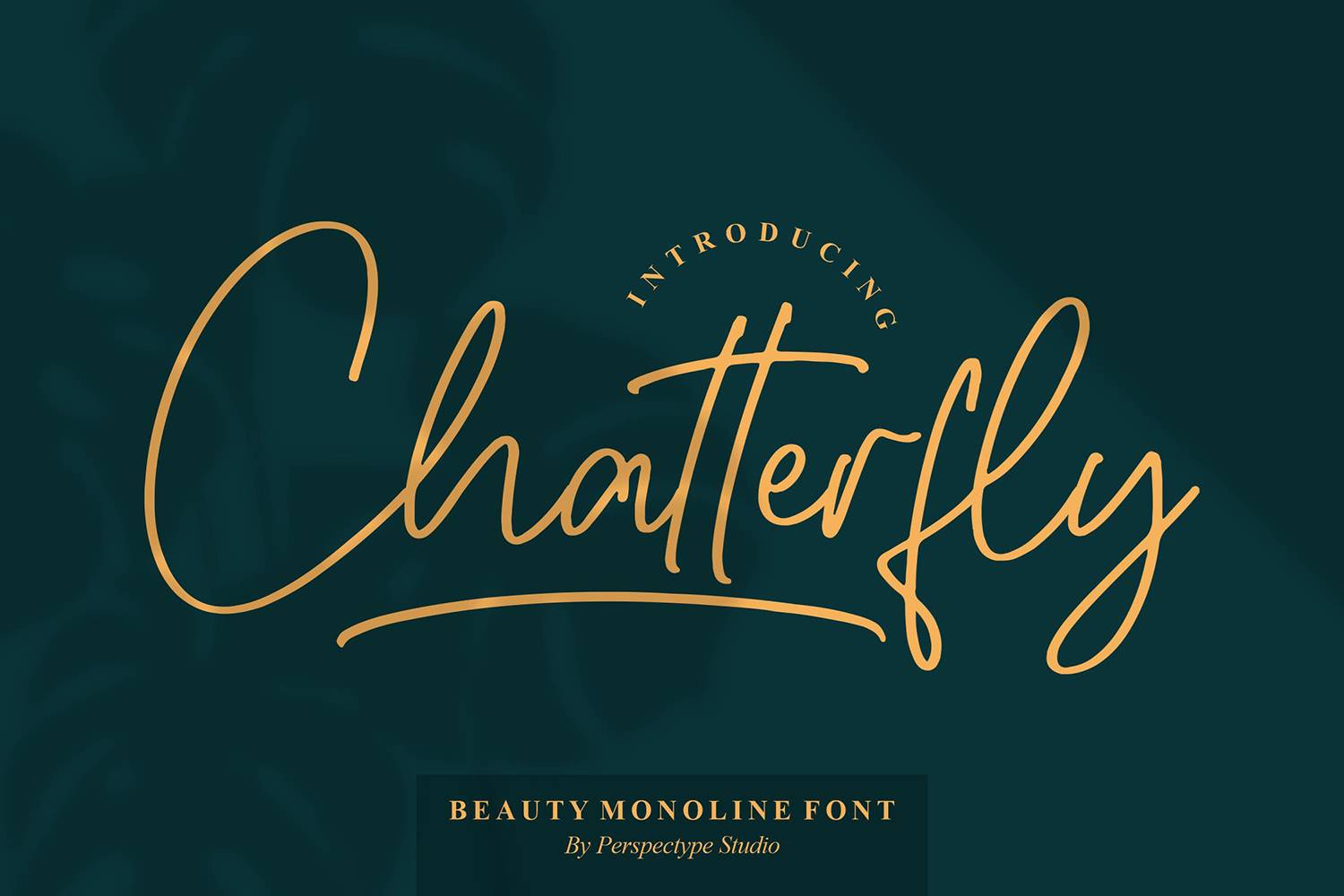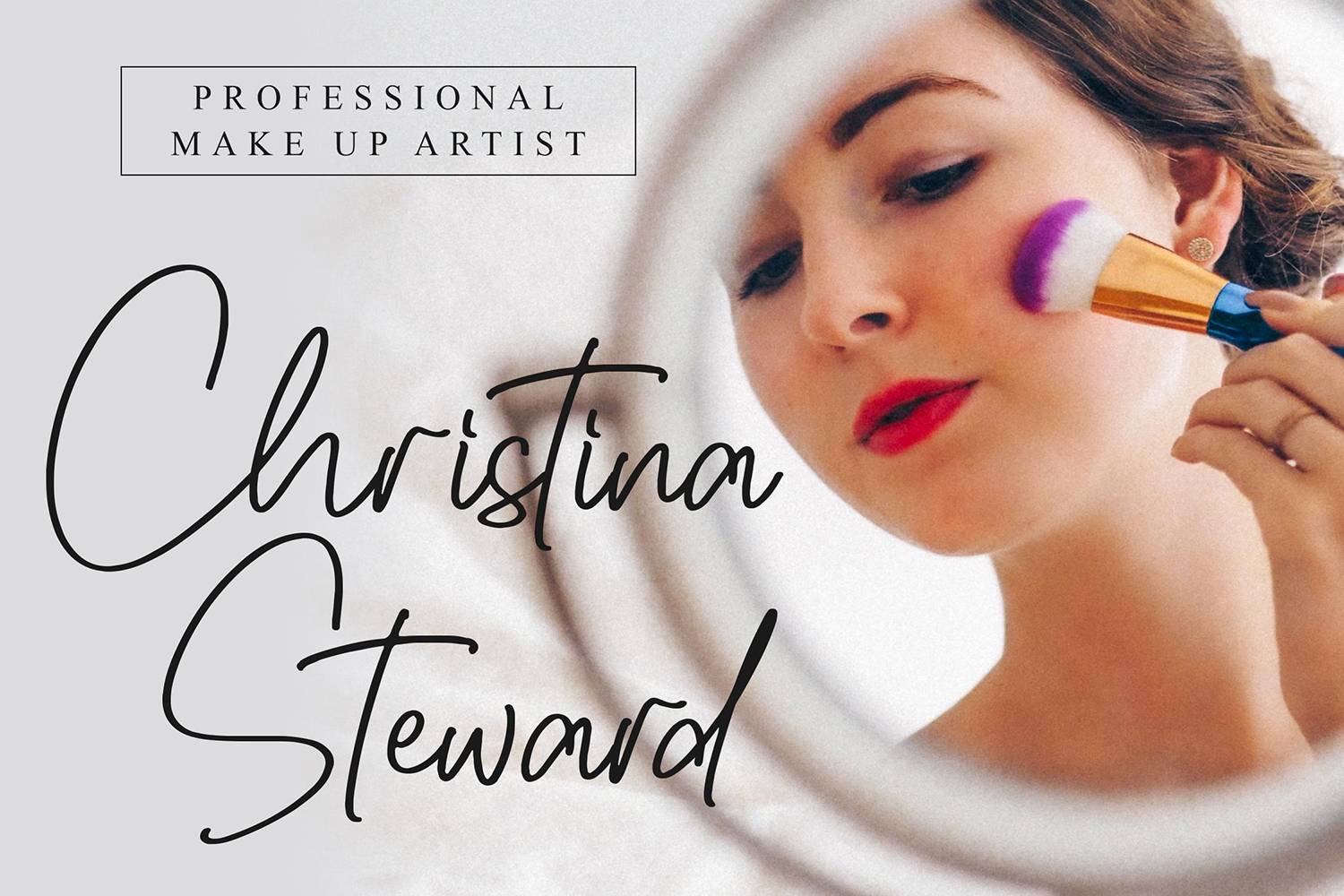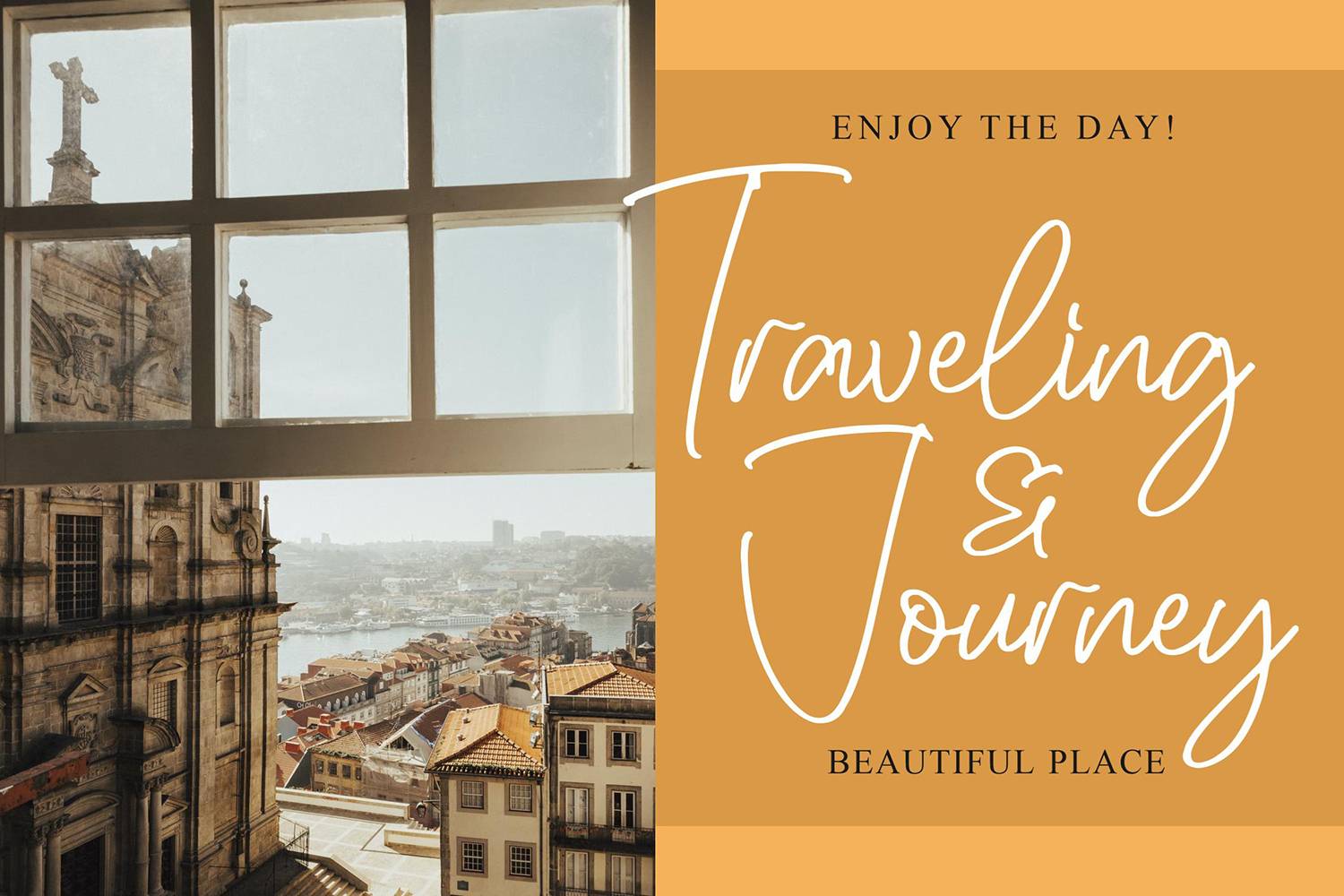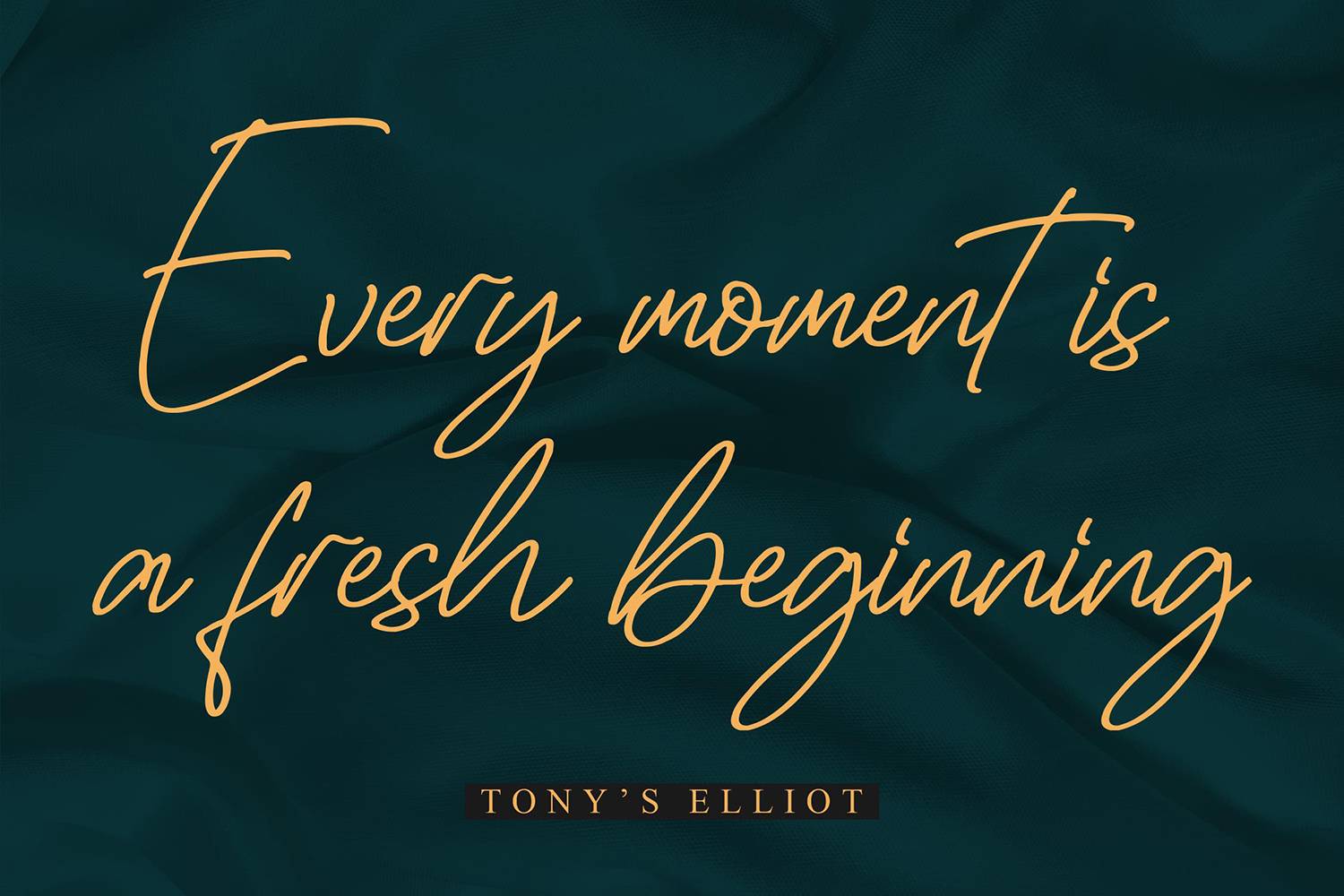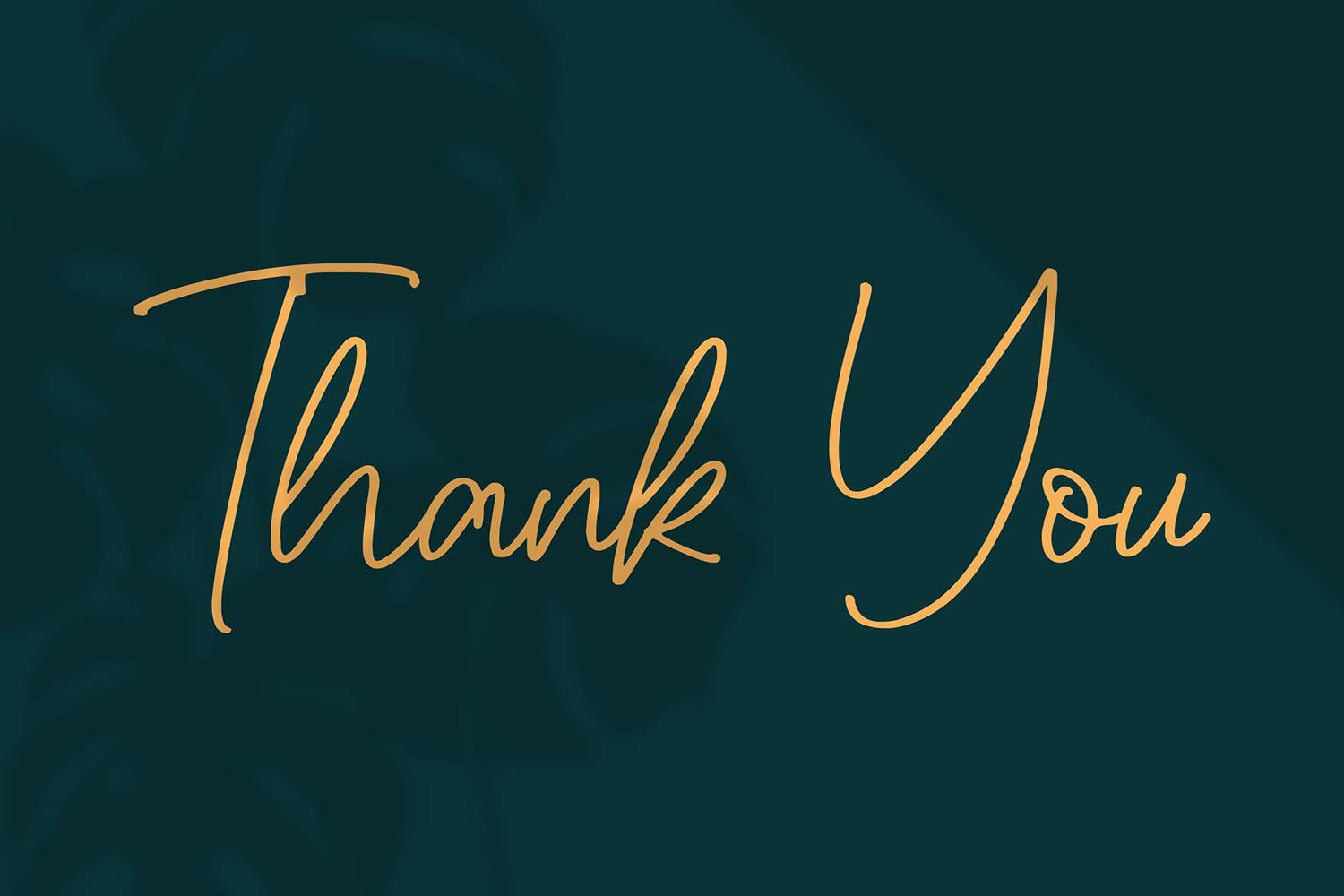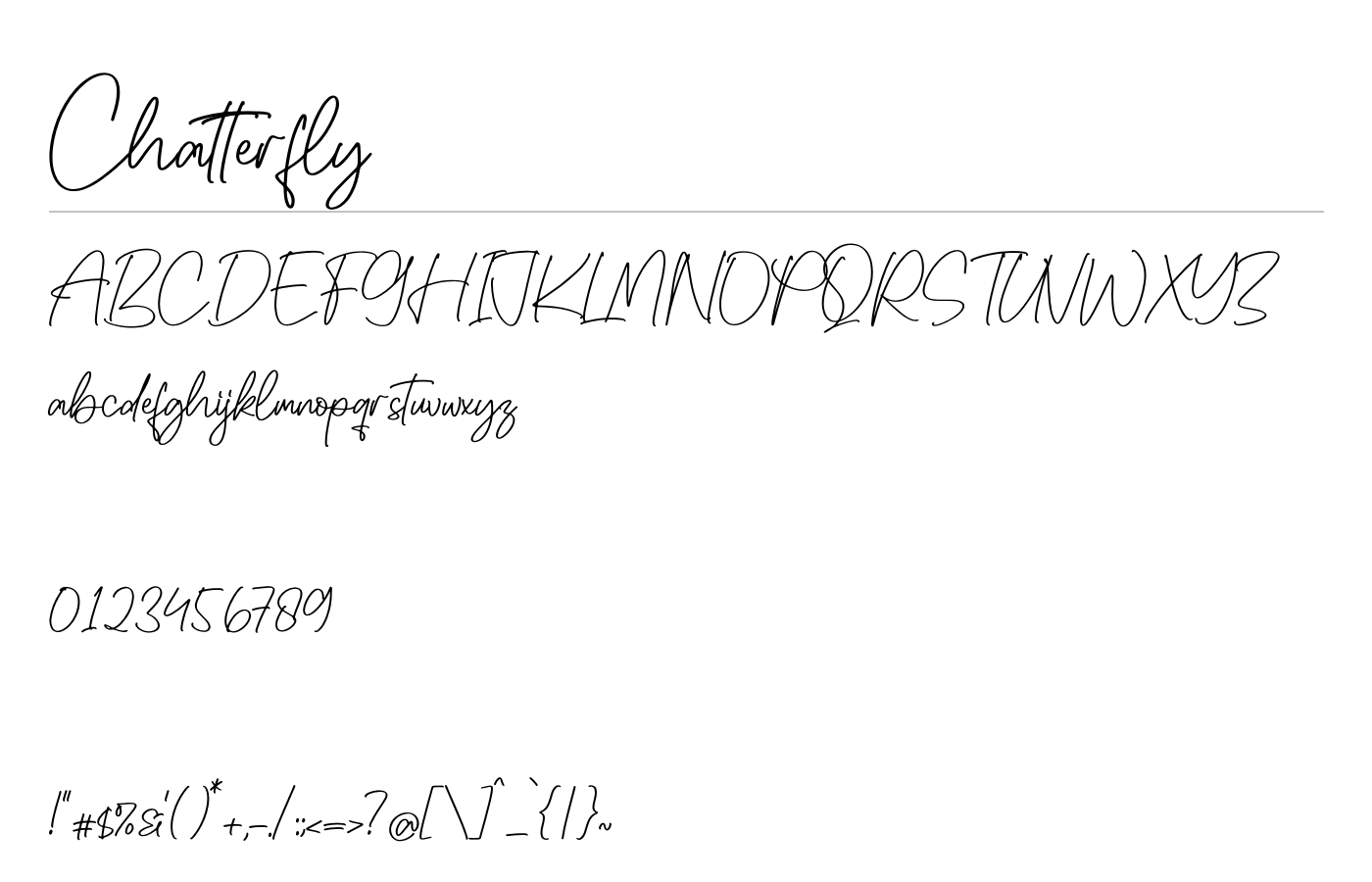
Chatterfly is a delicate, handwritten script font with a light weight and a casual, airy feel. Its tall, flowing letterforms and fine lines give it an elegant yet approachable personality, making it perfect for creative branding, invitations, and personal projects that seek a charming, natural touch. This font works best in headlines, logos, and decorative text where a stylish, hand-drawn look is desired.
Chatterfly Font
About Chatterfly Font
| Font family | Chatterfly Font |